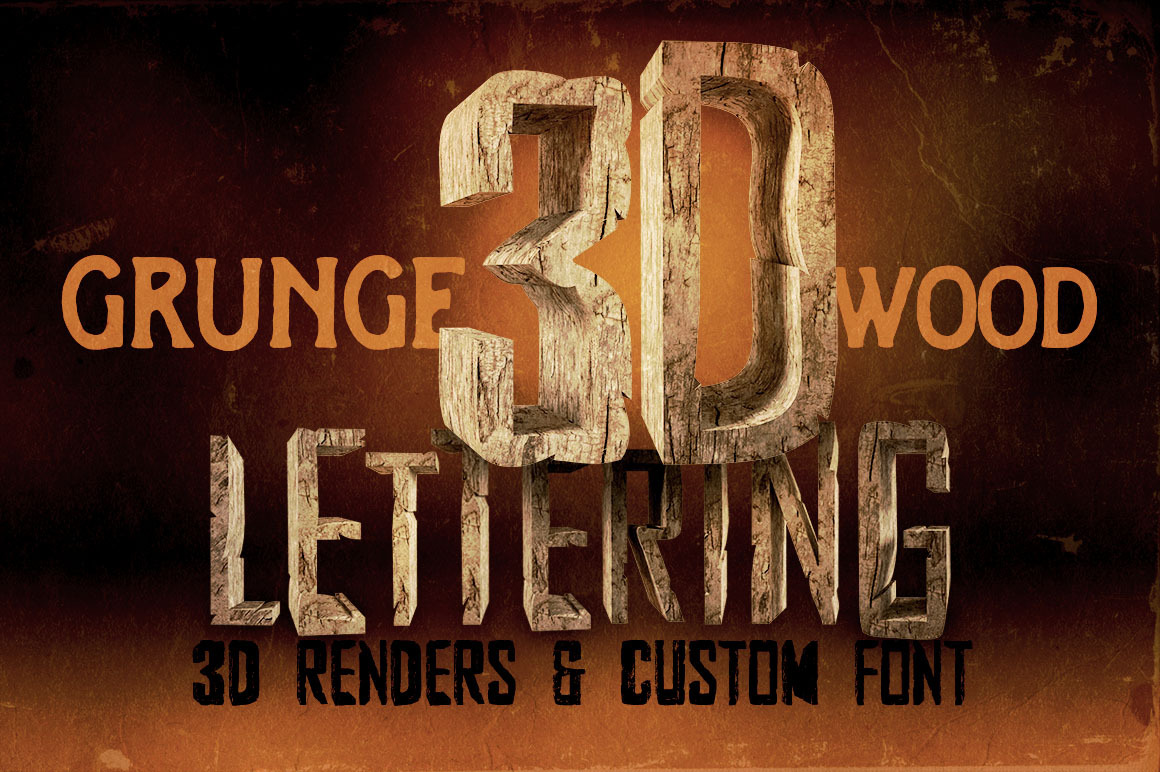
Grunge Wood - 3D Lettering + Font
Hi-res 3D grunge wood letter renders (2500x2500, 300dpi - size of letters around 1300x1500 pixels). Great for your headers or print projects. Custom font also included!